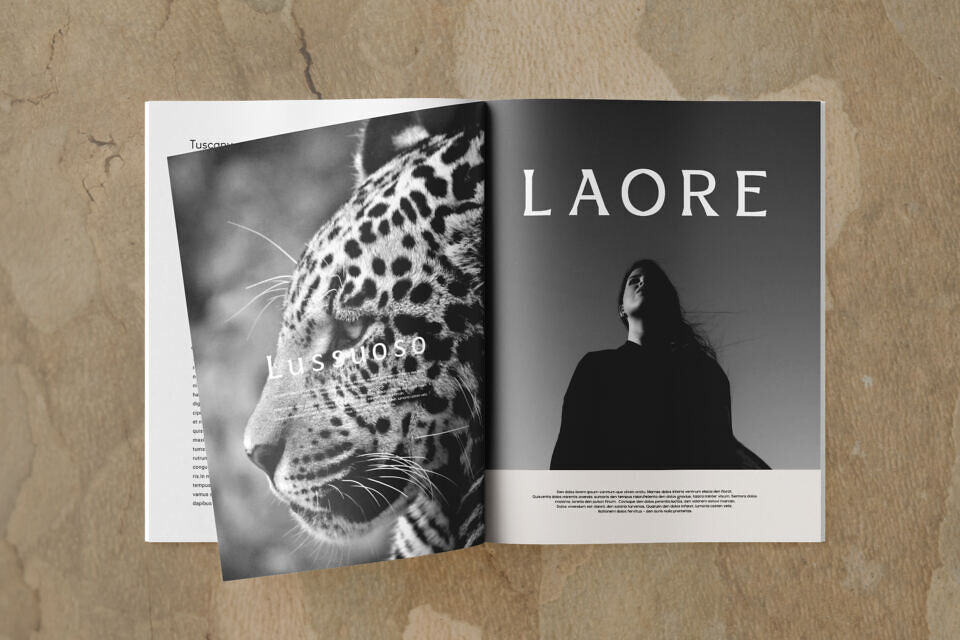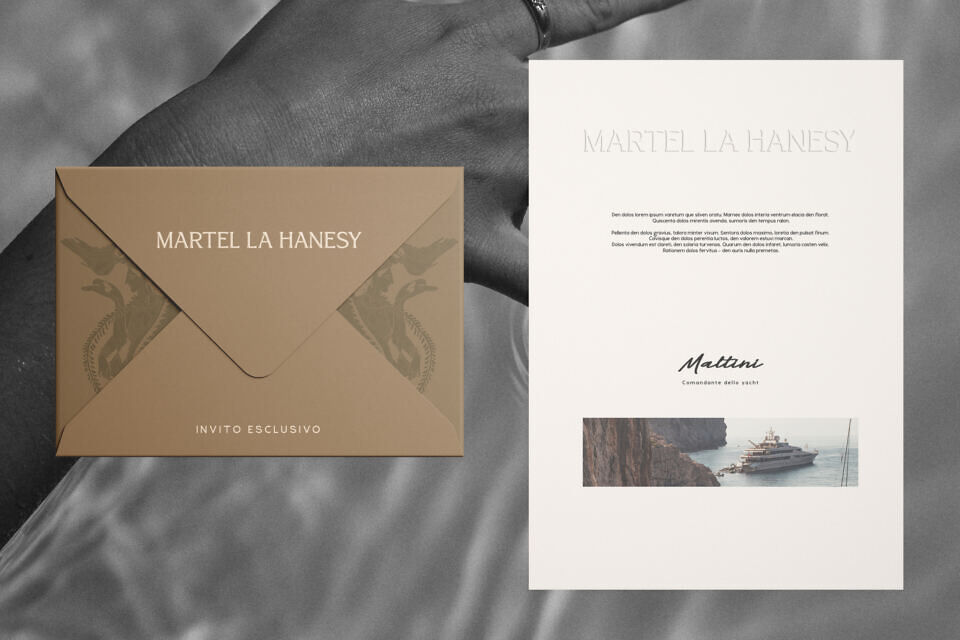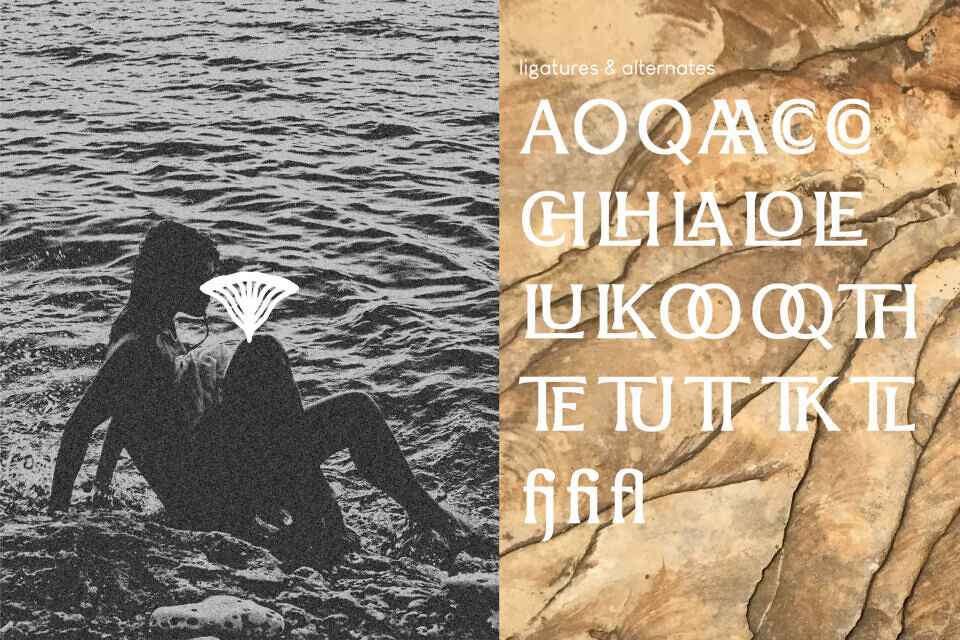
Macala De Club Font
Macala De Club is a sophisticated serif font that merges classic elegance with modern flair. Its meticulously crafted letterforms feature subtle curves and sharp edges, balancing expressiveness with composure. The font’s rhythmic, slightly dramatic serifs and thoughtful proportions make it versatile for luxurious logos, high-end magazine layouts, boutique packaging, or fashion-forward branding.
Ideal for editorial design, it enhances headlines and featured text with visual impact and readability, pairing well with minimal body copy. Macala De Club exudes an upscale yet approachable charm, commanding attention with quiet finesse. Perfect for designers seeking a typeface that blends warmth, elegance, and adaptability for both contemporary and timeless aesthetics.